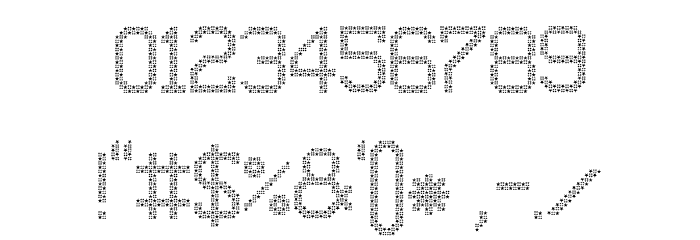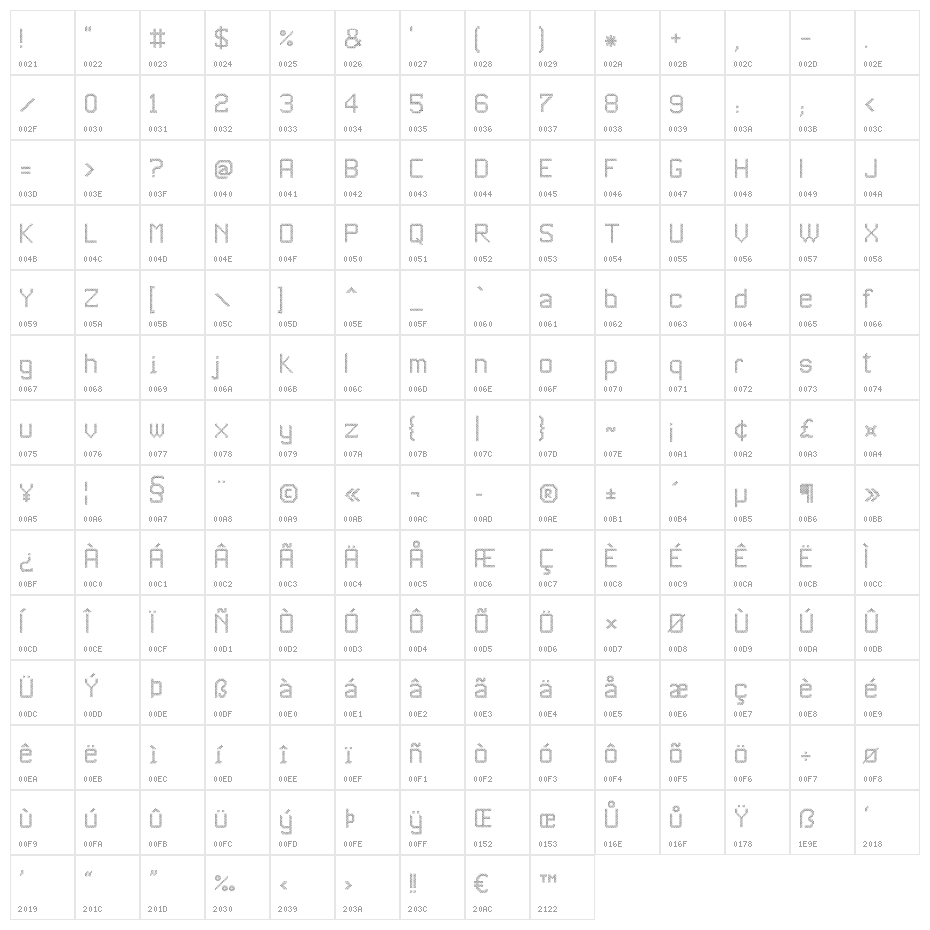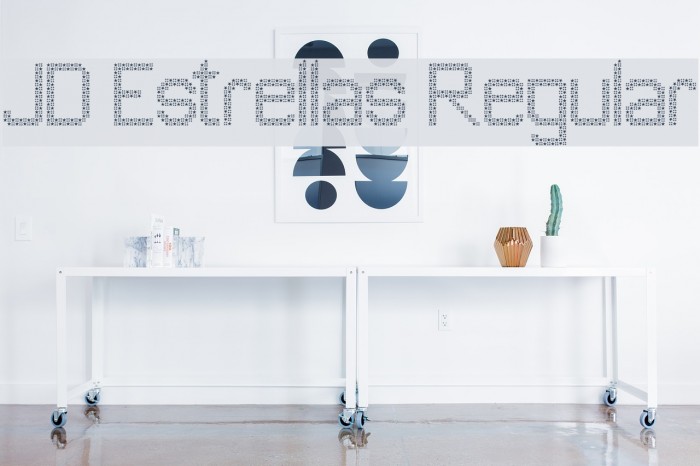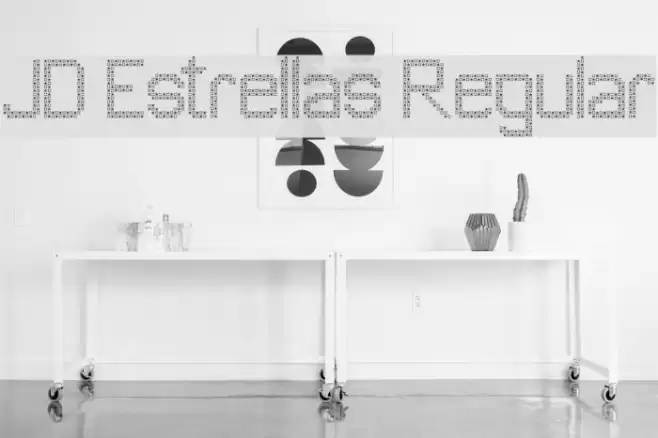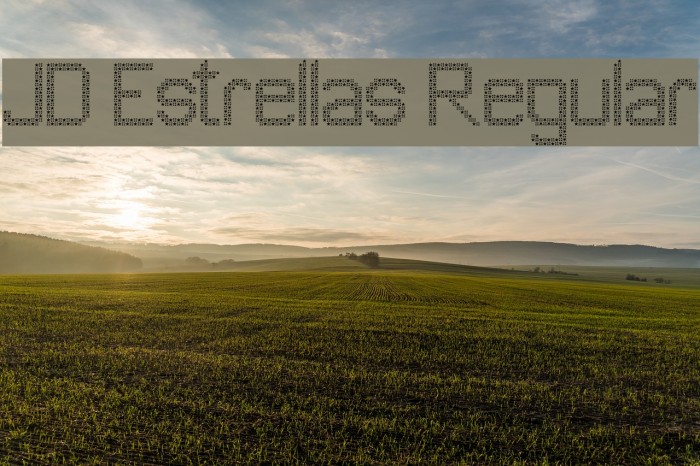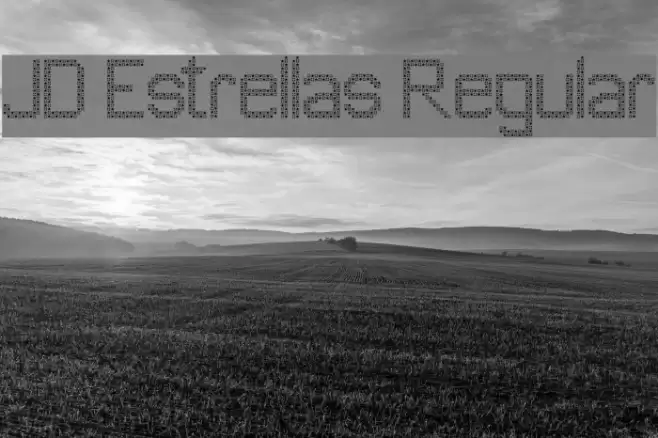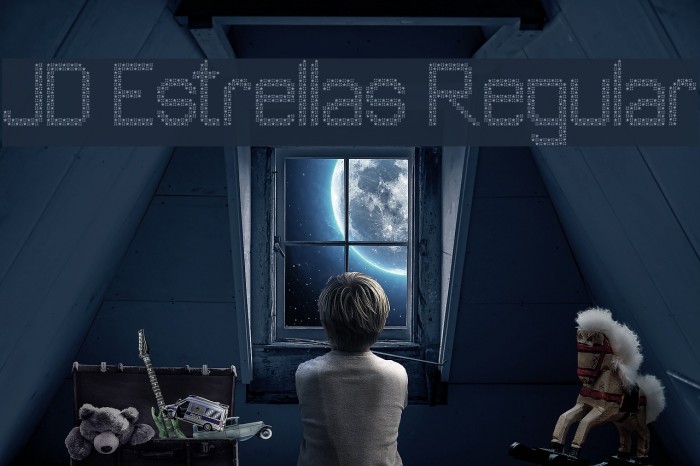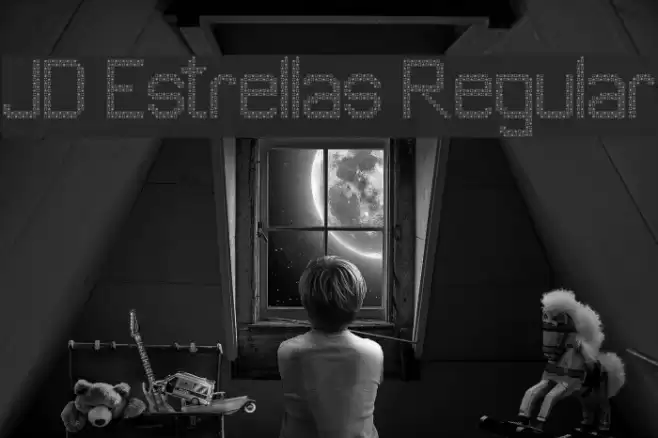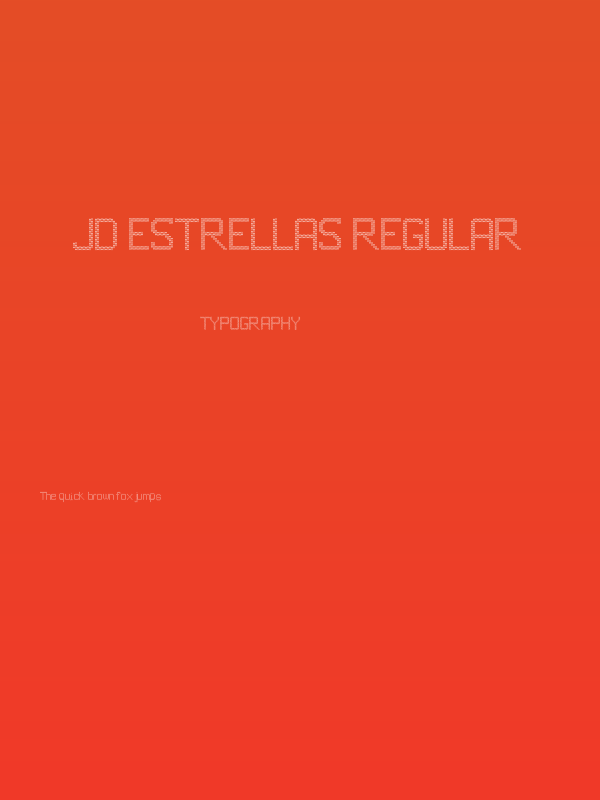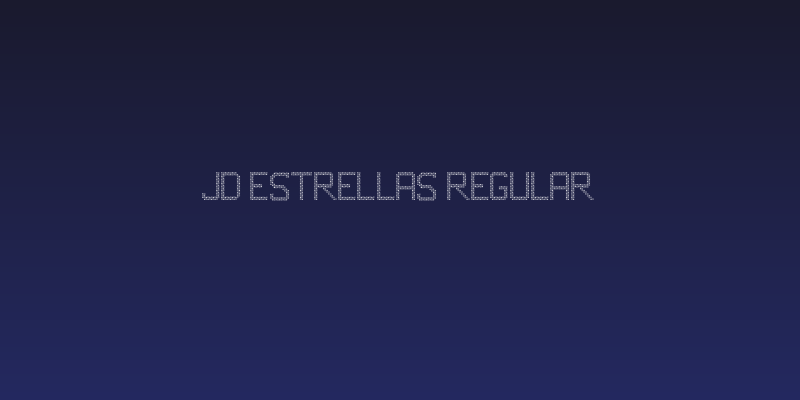
JD Estrellas Regular Font
JD Estrellas Regular Description
This font features a unique dotted pattern that forms each character, giving it a distinct and playful appearance. The uppercase and lowercase letters are constructed with consistent spacing between the dots, creating a cohesive look. The numerals and special characters follow the same design principle, ensuring uniformity across all elements. The font's geometric structure is balanced, with each character maintaining a similar width and height, contributing to its modern and clean aesthetic. The dotted style adds a decorative touch, making it suitable for creative and artistic projects.
| Proposed Projects | Ideal for creative designs, posters, children's books, and artistic branding projects. |